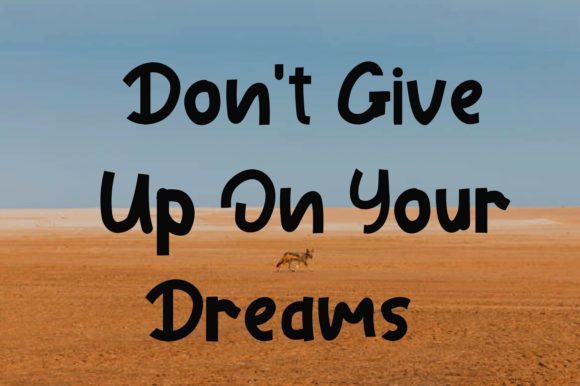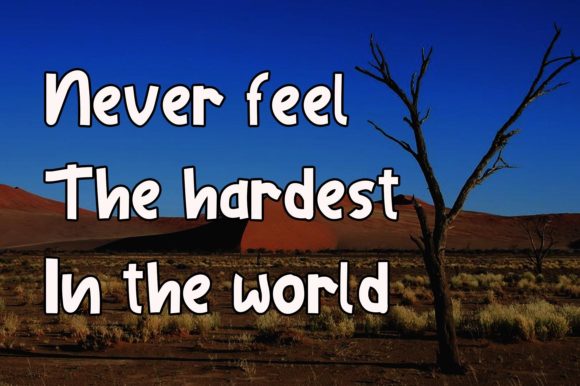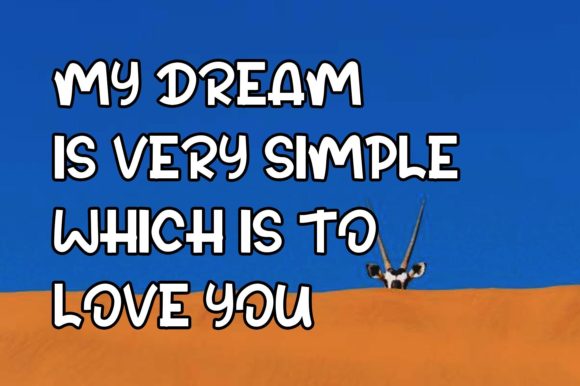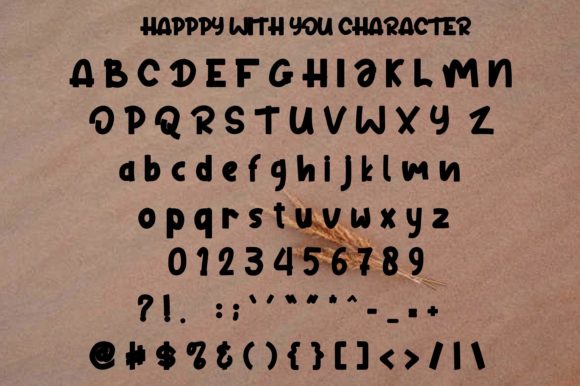
Introduction to Happy with You Font
Happy With You Font is a cute and casual display font that will look outstanding in any context.
Whether youโre looking for fonts for Instagram or calligraphy scripts for DIY projects, this font will turn any creative idea into a true piece of art Happy With You Font can be used for various purposes such as logos, headings, t-shirts, letterhead, signage, labels, news, posters, badges, and so much more.